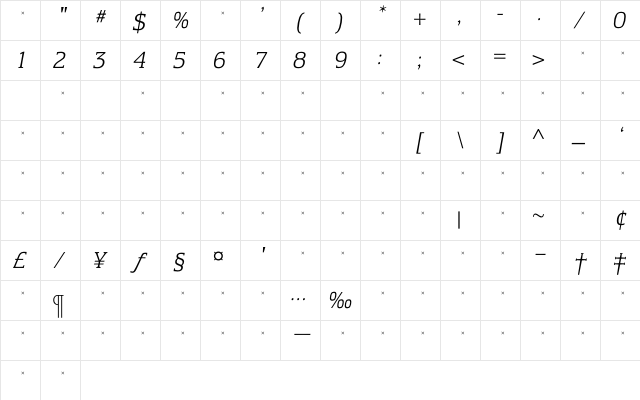
Complete EquestrienneLightItalicTab Regular glyph index. Displaying only characters natively supported by EquestrienneLightItalicTab Regular font.
EquestrienneLightItalicTab is a composed and adaptable typeface that performs quietly and consistently across a wide range of design contexts. The slanted form adds forward momentum and visual energy. Its slender proportions lend an understated elegance to any composition.